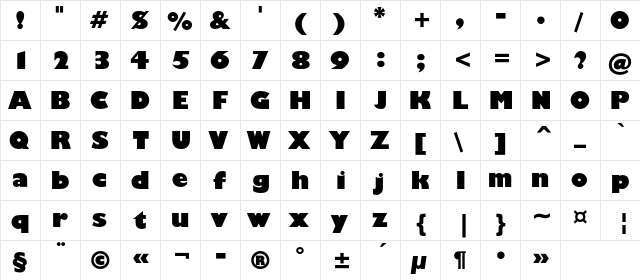
Humanist521C UltraBold BT Regular Font Preview
Humanist521C UltraBold BT Regular
Design Context for Humanist521C UltraBold BT Typeface
Humanist521C UltraBold BT is a composed and adaptable typeface that performs quietly and consistently across a wide range of design contexts. Its bold stroke weight gives it real presence on the page.